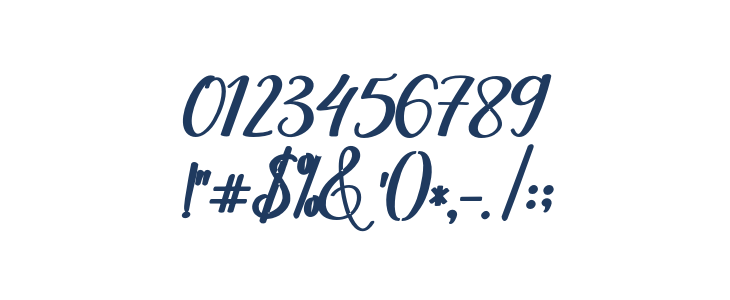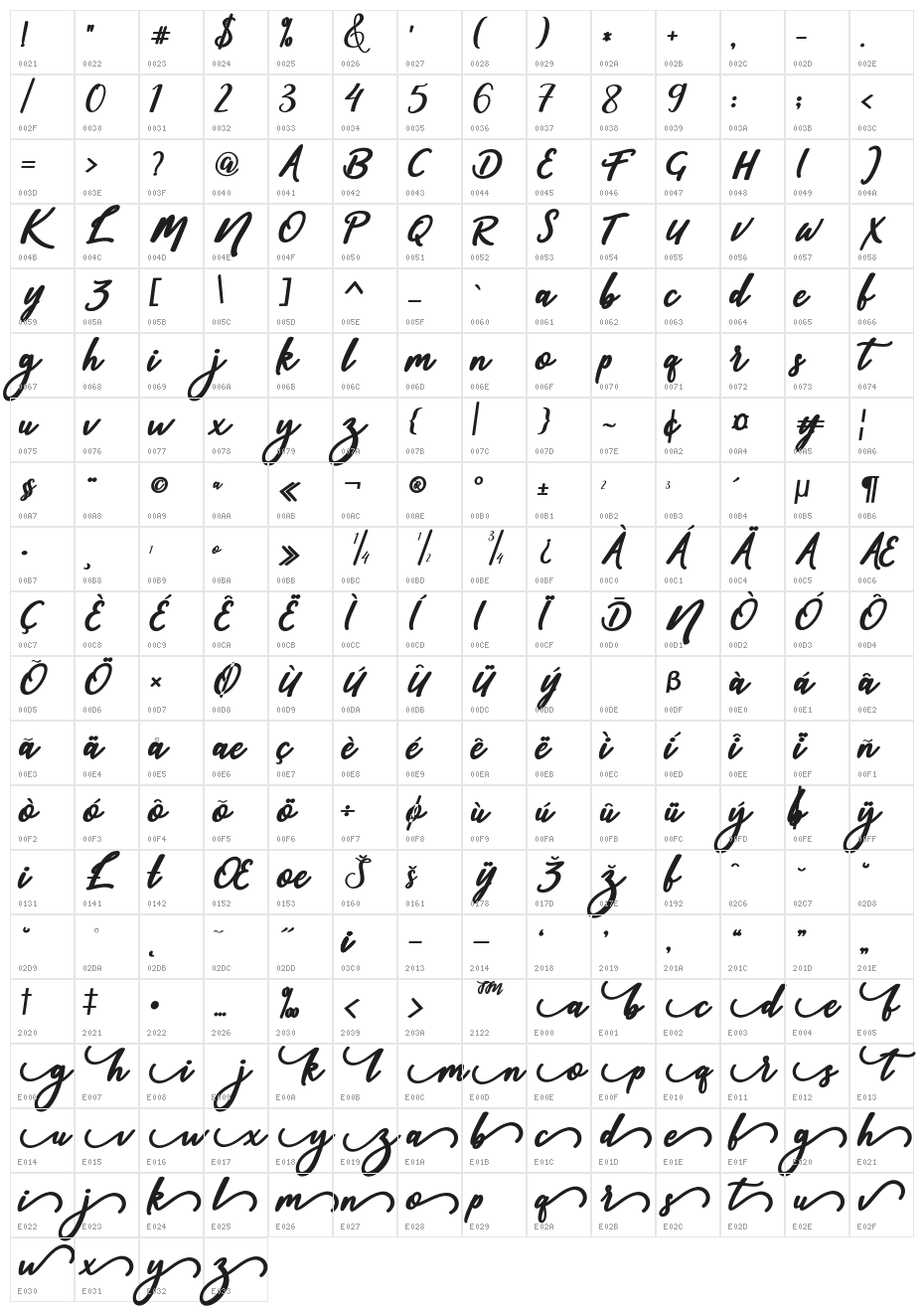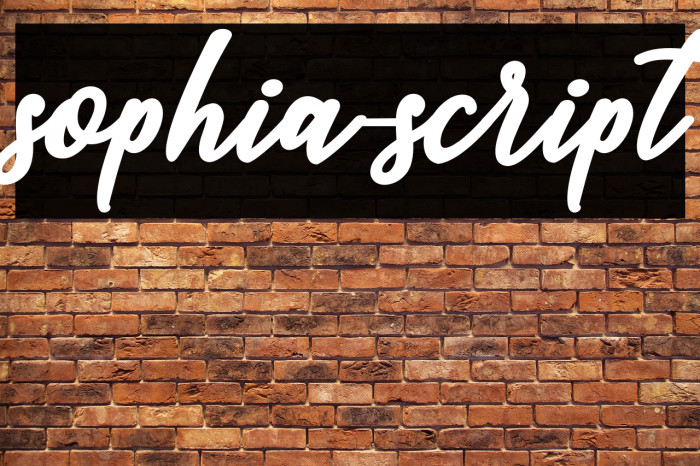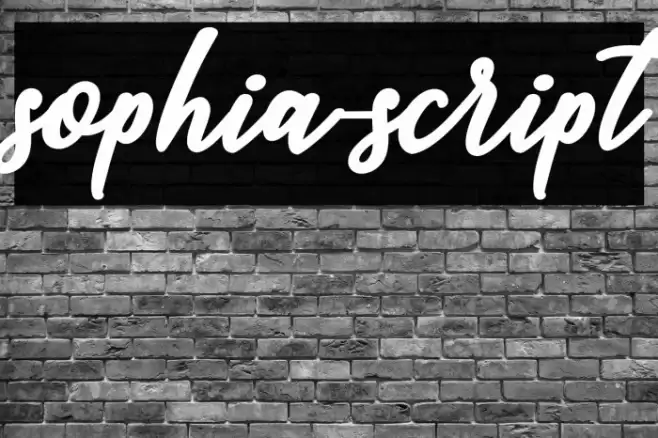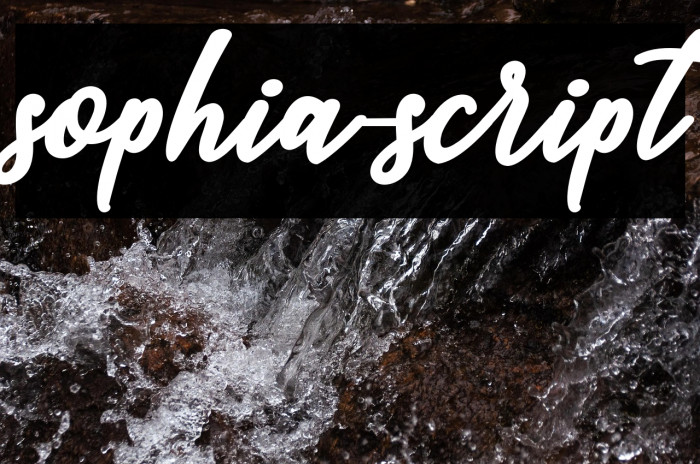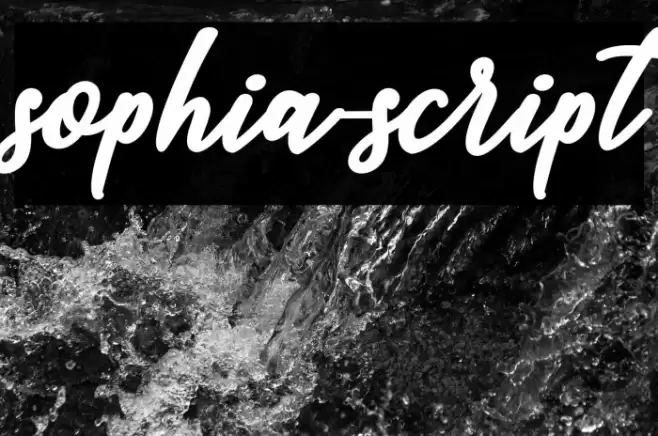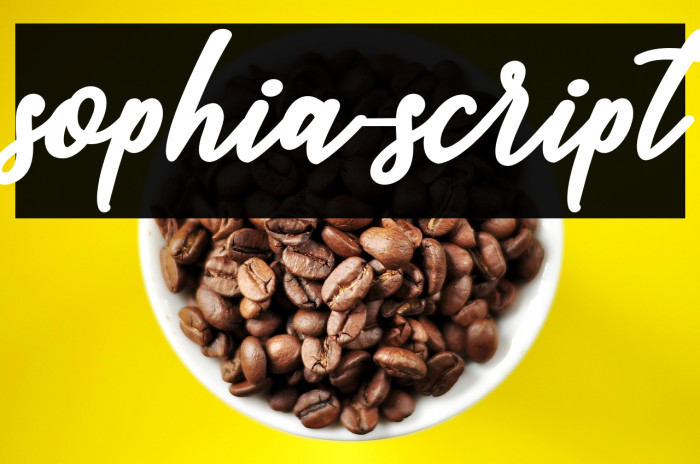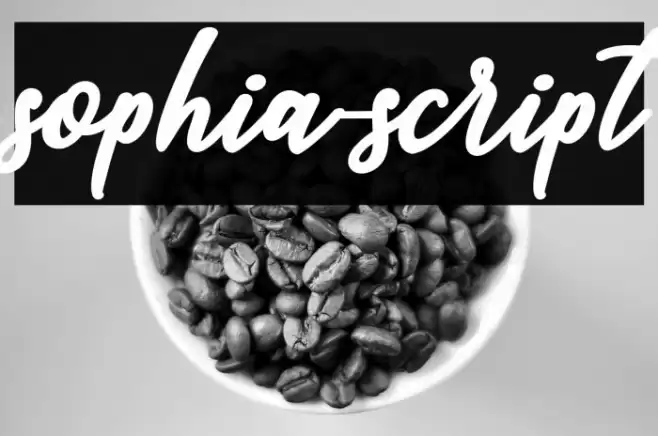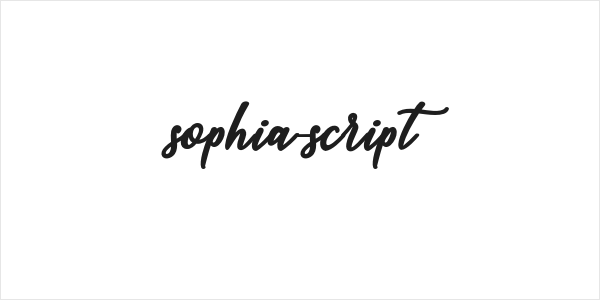
sophia-script Font
sophia-script Description
This elegant script font features fluid, cursive strokes that convey a sense of sophistication and grace. The uppercase letters are slightly more formal, with sweeping curves and a consistent slant, while the lowercase letters maintain a smooth, flowing style. The numerals are distinct and easy to read, complementing the overall aesthetic. Special characters are thoughtfully designed to match the font's graceful appearance. This font is ideal for projects that require a touch of elegance and style, such as wedding invitations, branding, and high-end product packaging.